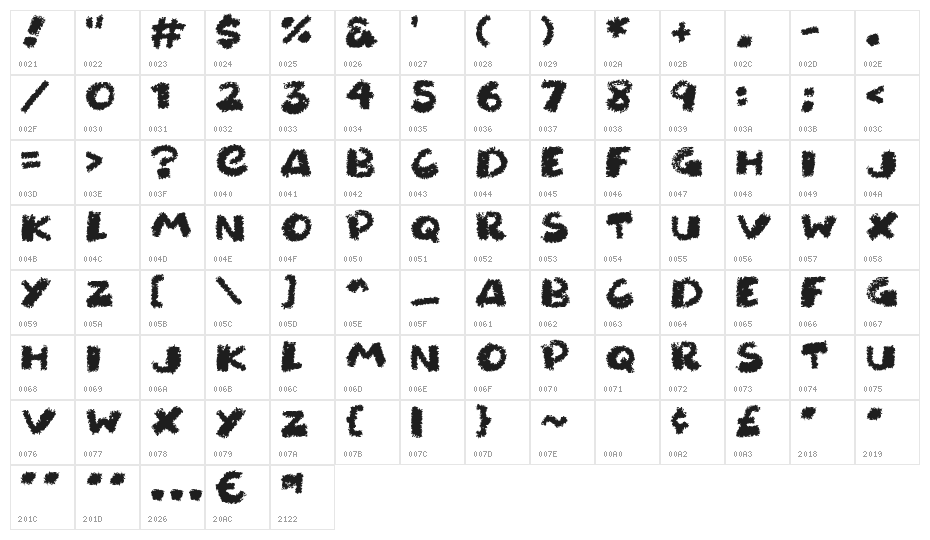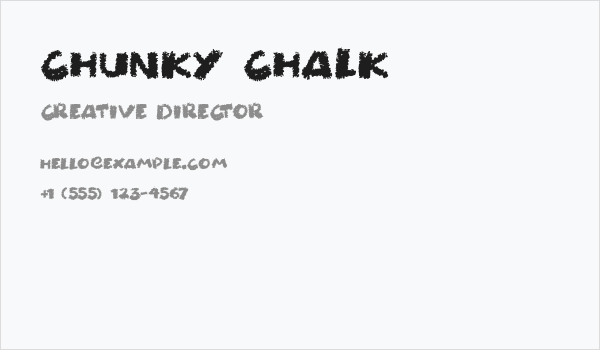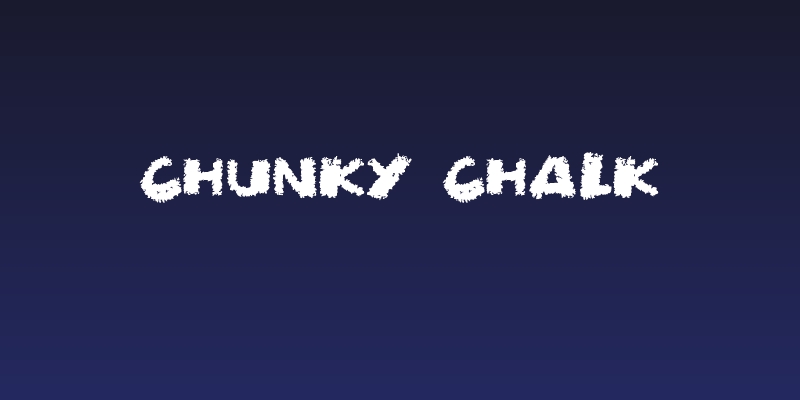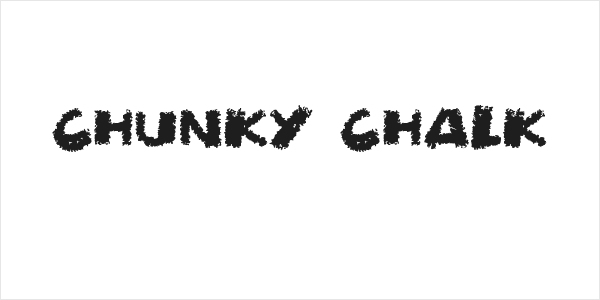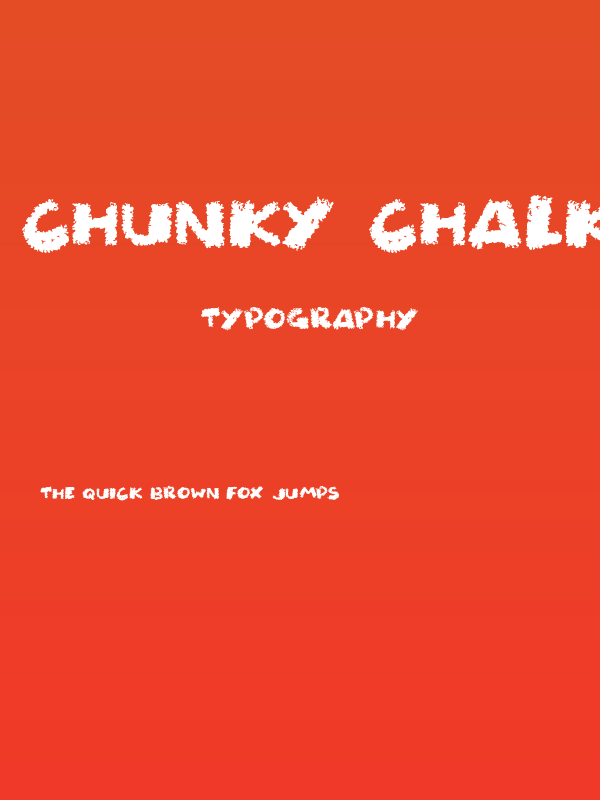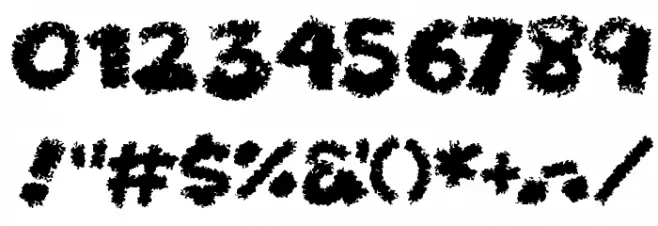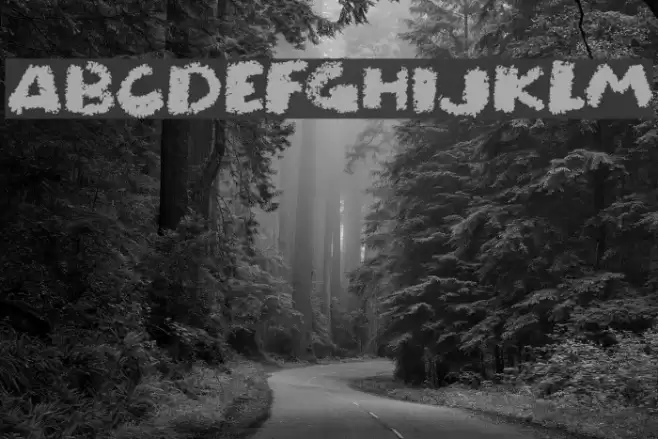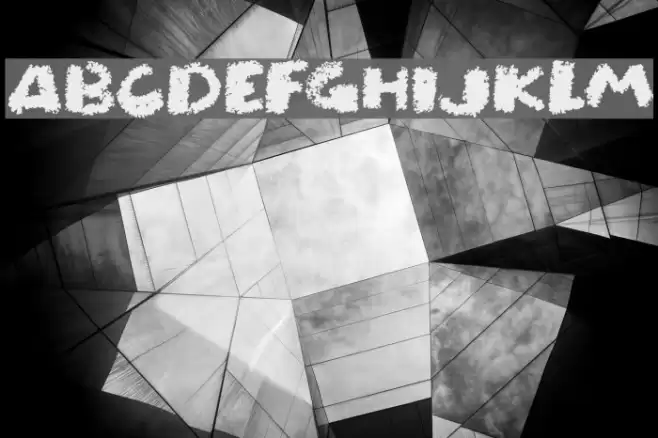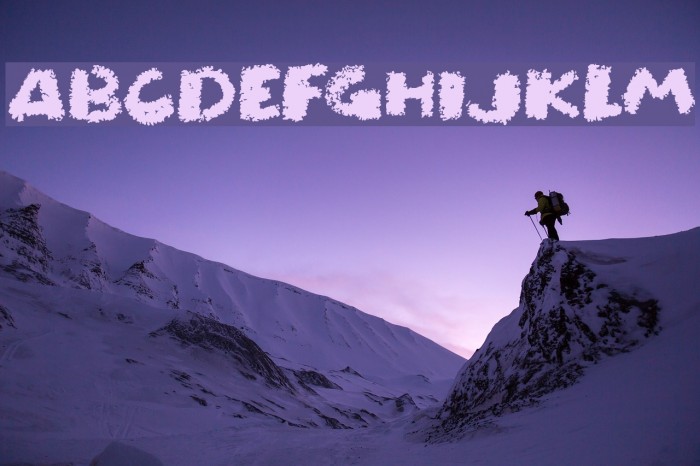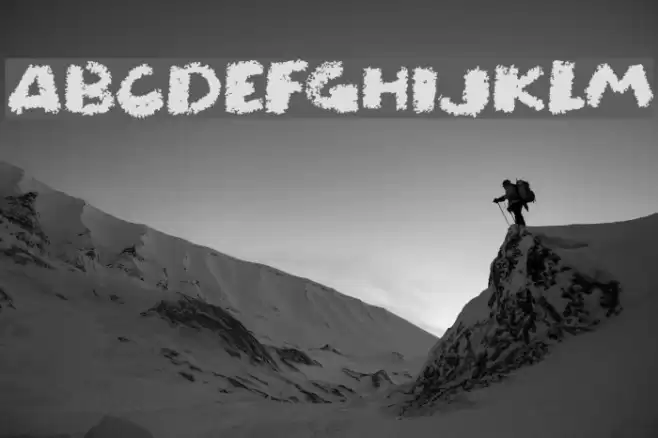
Chunky Chalk Font
Chunky Chalk Description
This font features a bold, textured style reminiscent of chalk writing on a blackboard. The letters are thick and have a rough, uneven edge that gives them a playful and informal appearance. The uppercase and lowercase letters maintain a consistent weight, contributing to a cohesive look. Numbers and special characters follow the same design, ensuring uniformity across all glyphs. The font's unique texture adds a tactile quality, making it stand out in digital and print media. Its boldness ensures readability, while the chalk-like texture adds a creative flair, perfect for projects that require a casual or artistic touch.
Darrell Flood
| Overall Style | Playful, Artistic |
| Use Case | Headlines, Posters, Creative Branding |
| Proposed Projects | Ideal for educational materials, children's books, playful branding, or any project that benefits from a casual, artistic touch. |